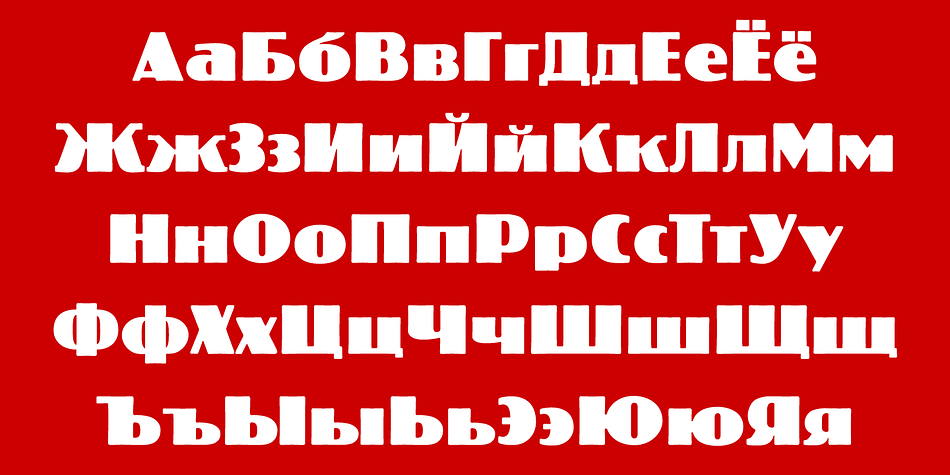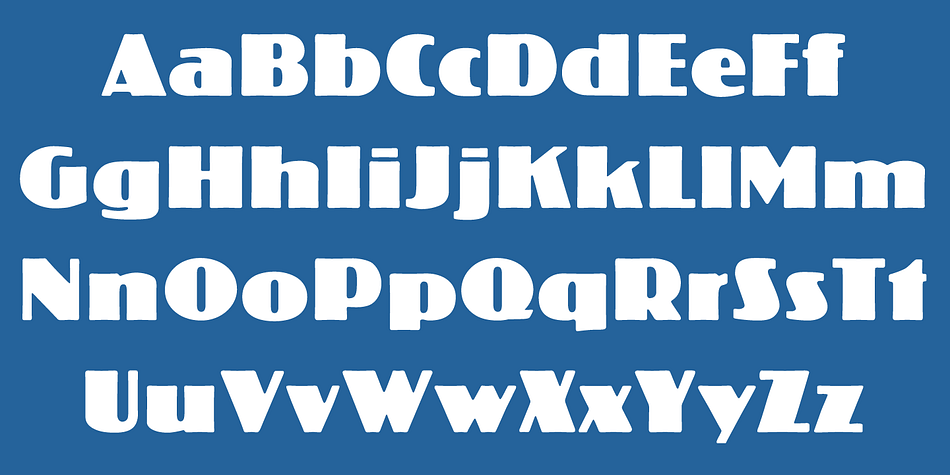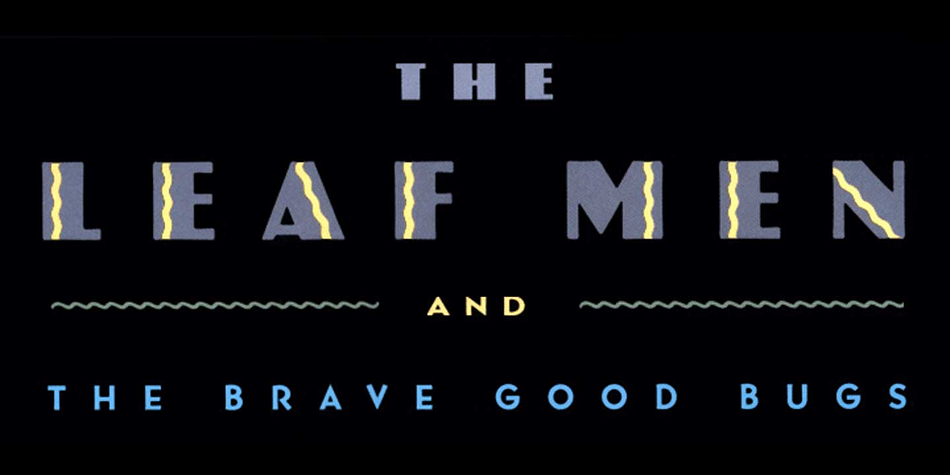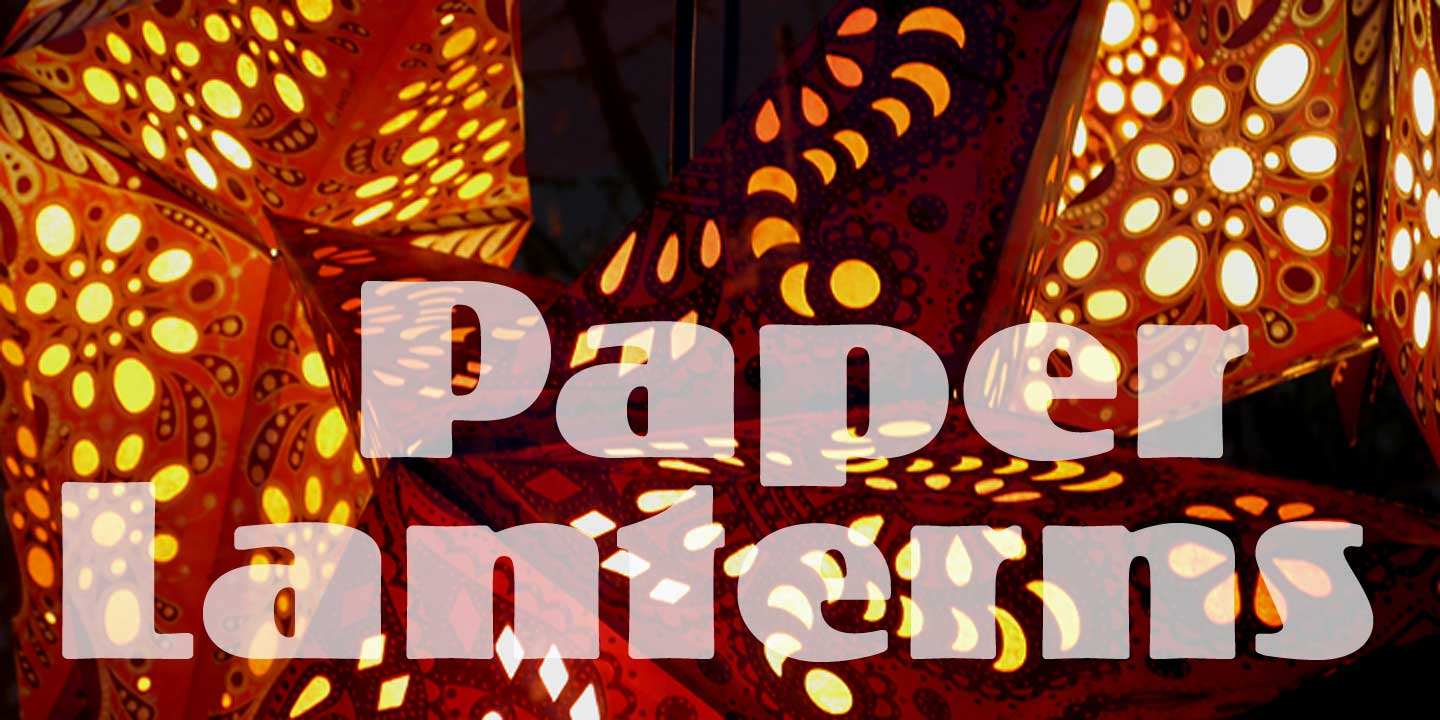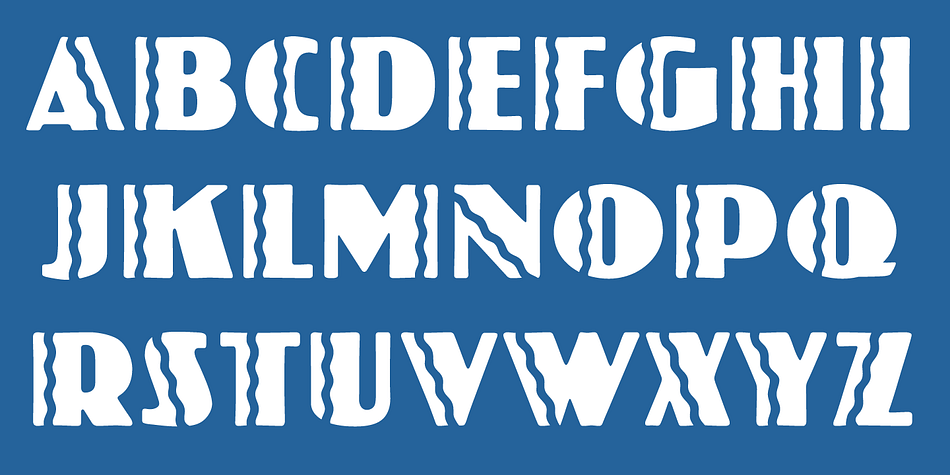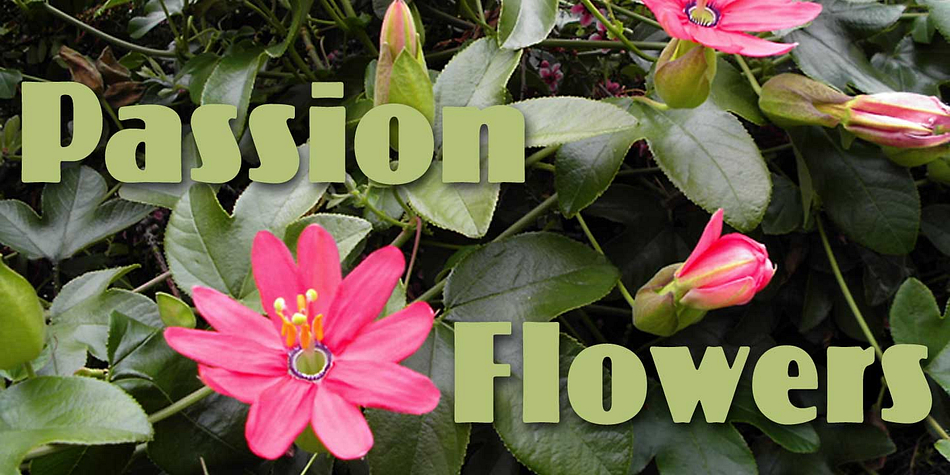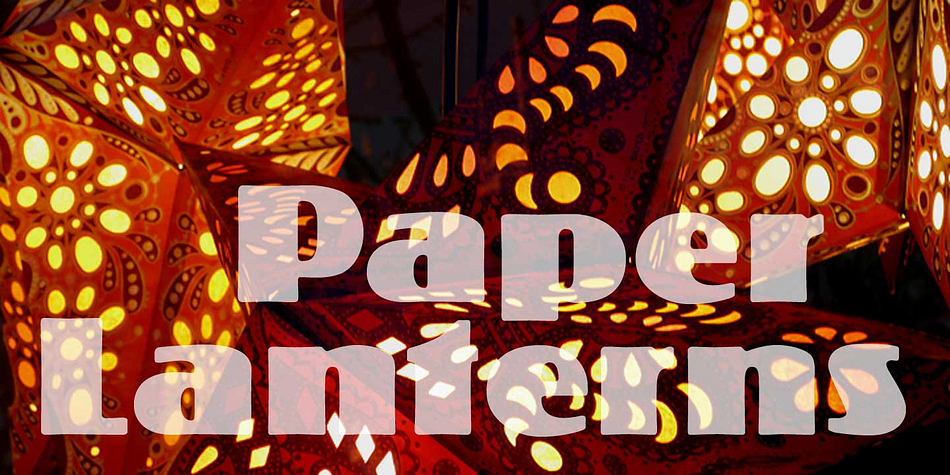
Koloss CT is a retro font family. This typeface has three styles and was published by CastleType.
A well-designed bold art deco font. Very chunky. Uppercase, lowercase, numerals and punctuation. CastleType additions to the Koloss family include Koloss Bold Condensed and Koloss Bold Wave.